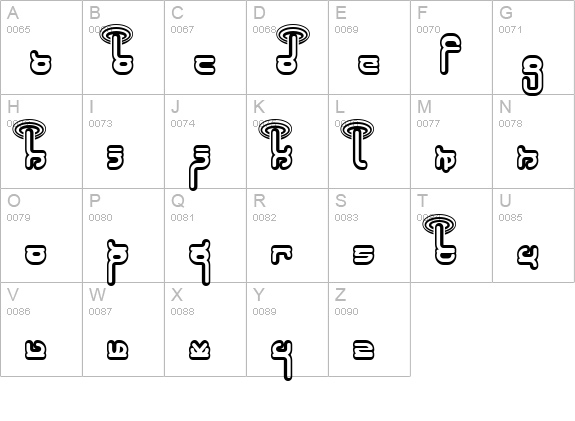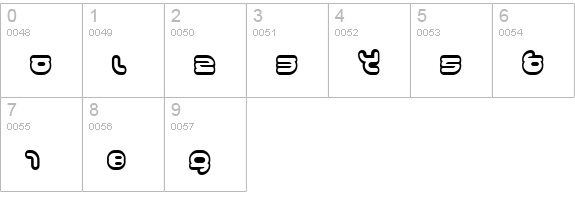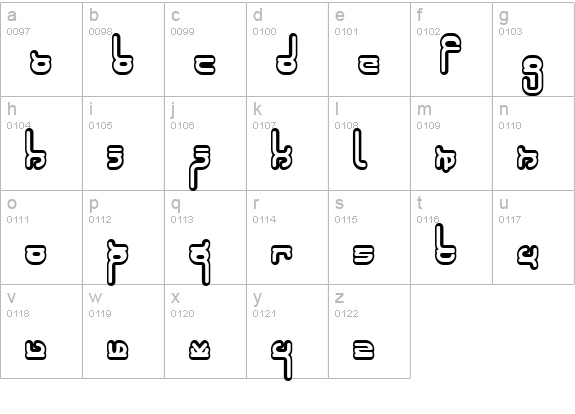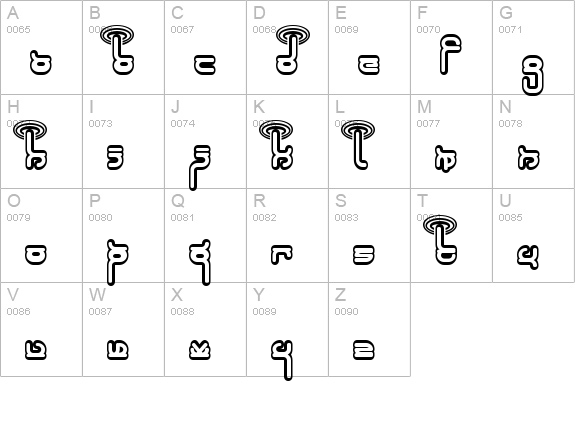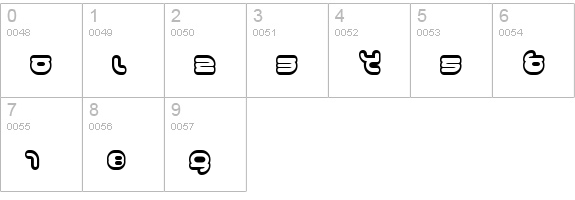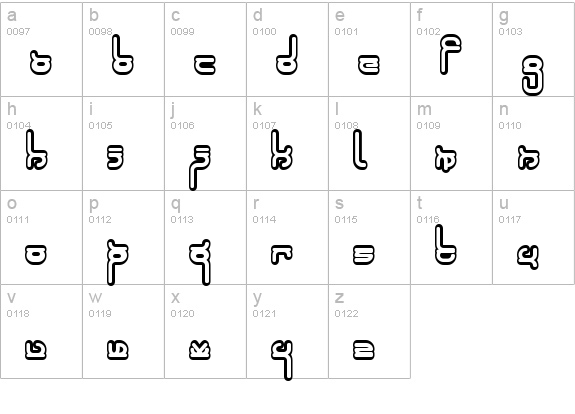
Introducing Robokid font, a futuristic and sleek typeface that brings a touch of modernity to any design project. With its clean lines and geometric shapes, Robokid is perfect for adding a high-tech vibe to logos, posters, websites, and more. This versatile font is ideal for sci-fi themes, gaming graphics, and digital art projects. The best part? Robokid font is completely free to download at FontsMarket.com. Whether you're a graphic designer, student, or hobbyist, you can easily access this cutting-edge font to take your creations to the next level. Embrace the future with Robokid font and elevate your designs with its bold and dynamic aesthetic. Download it today and let your creativity soar with this innovative typeface.